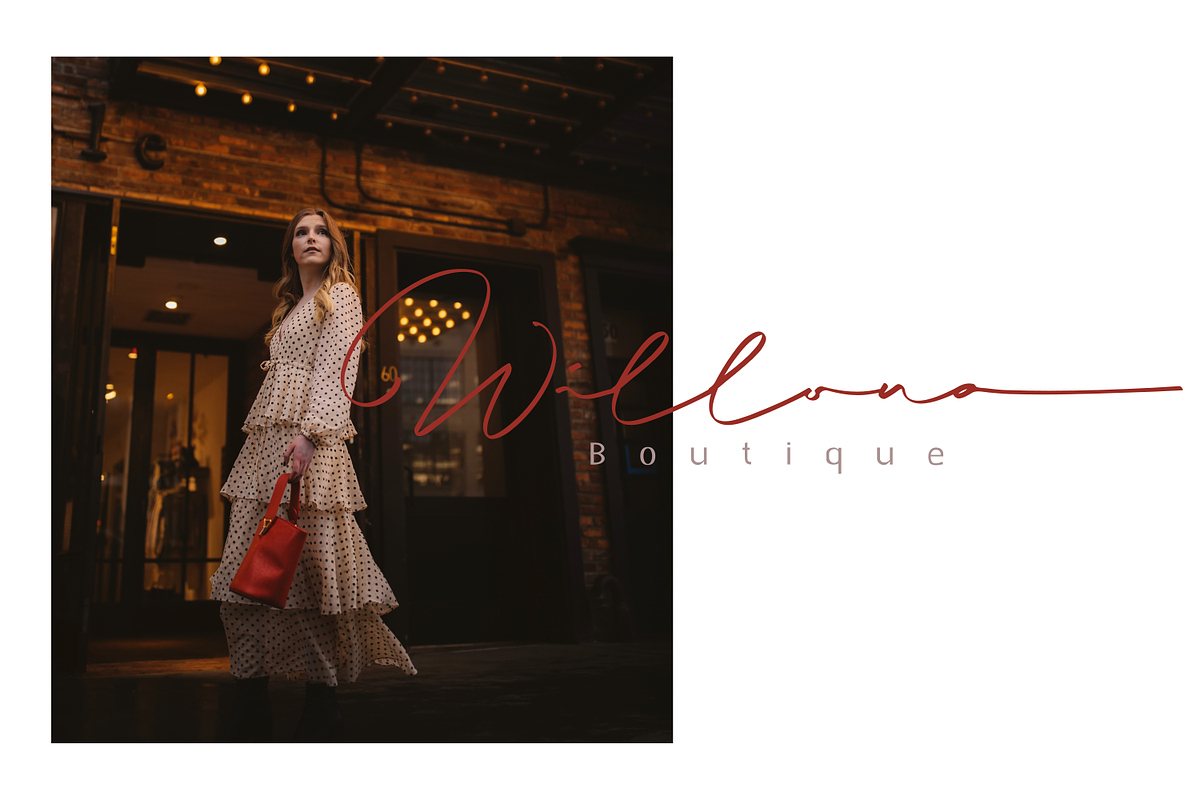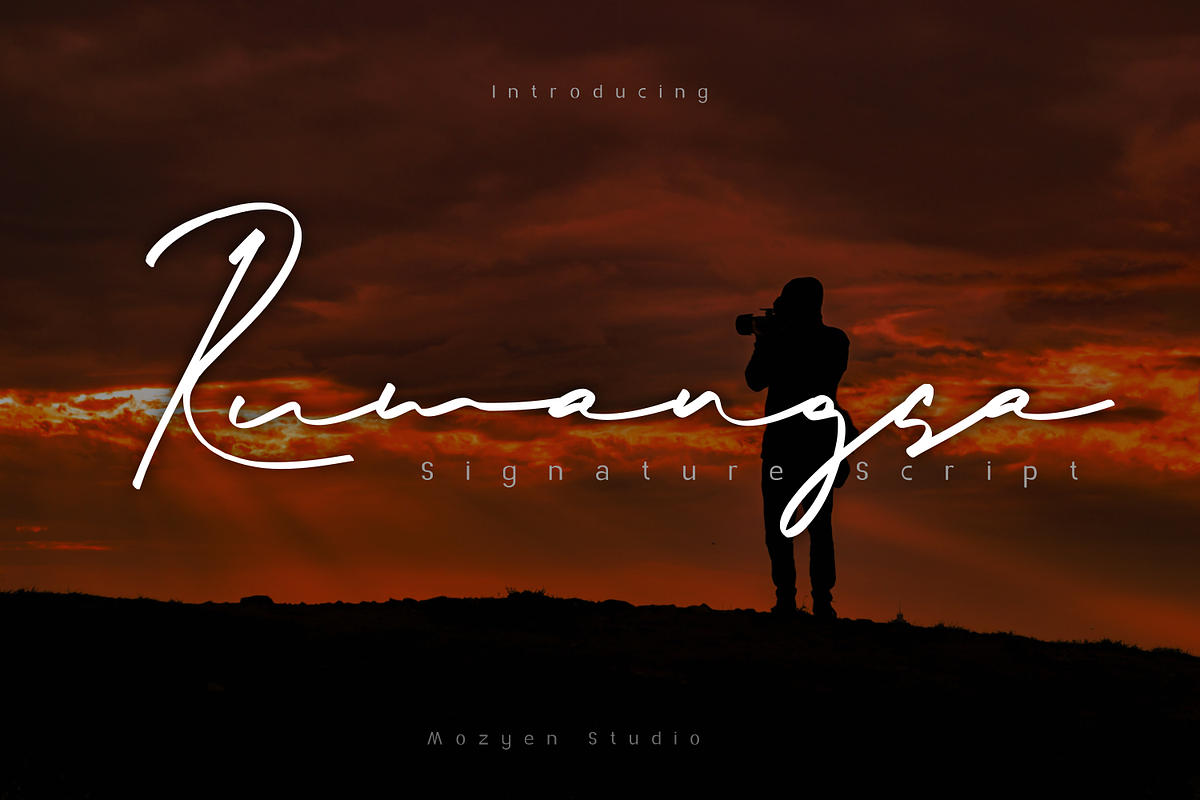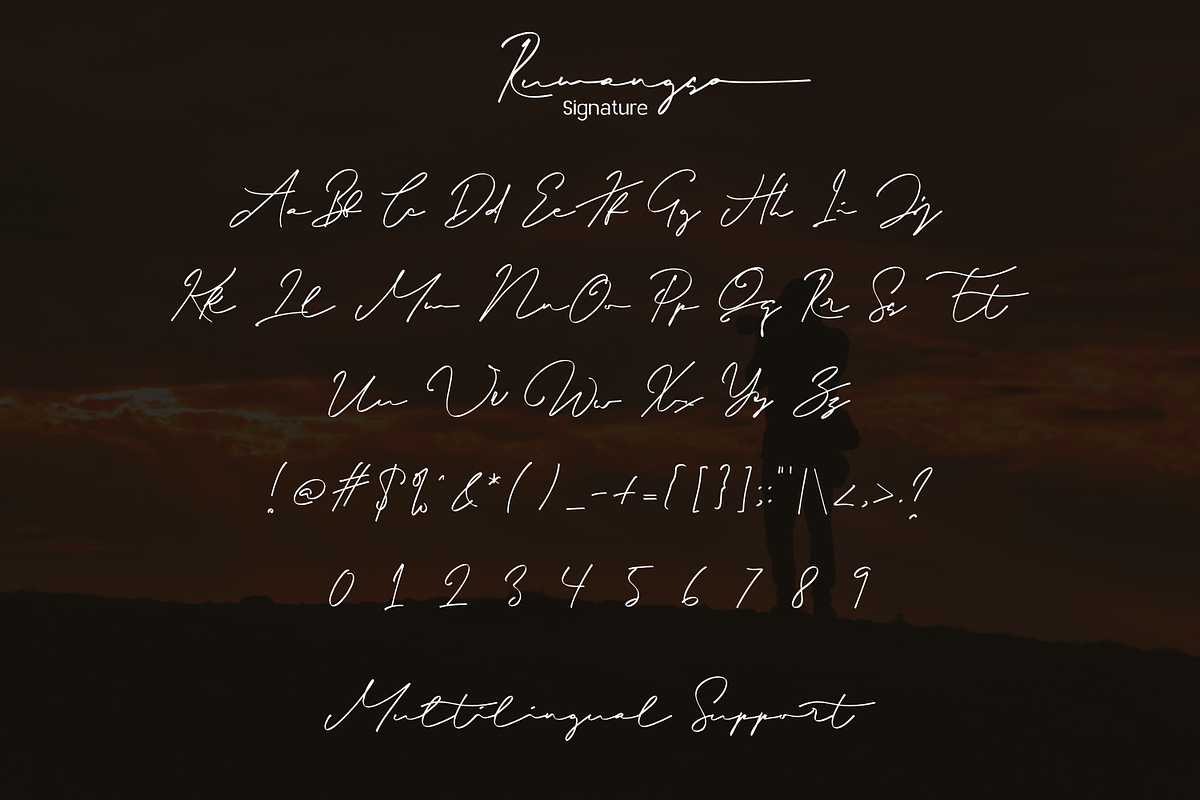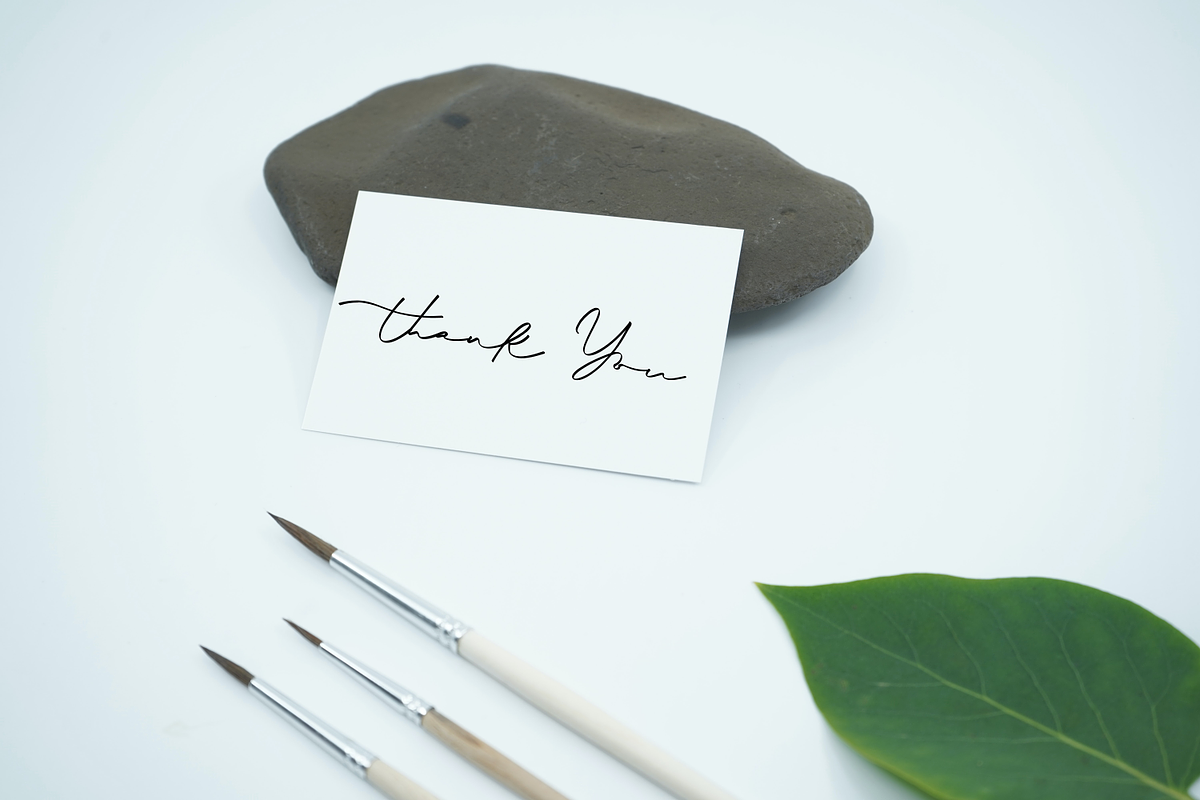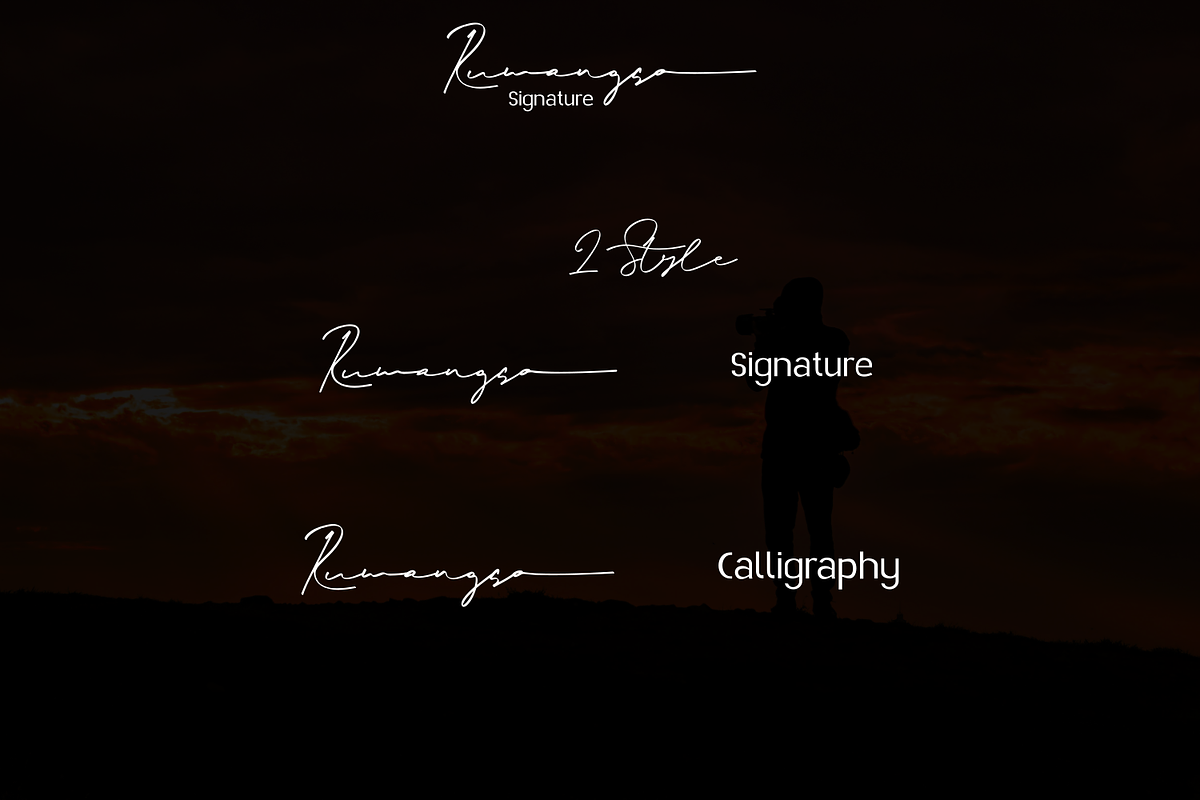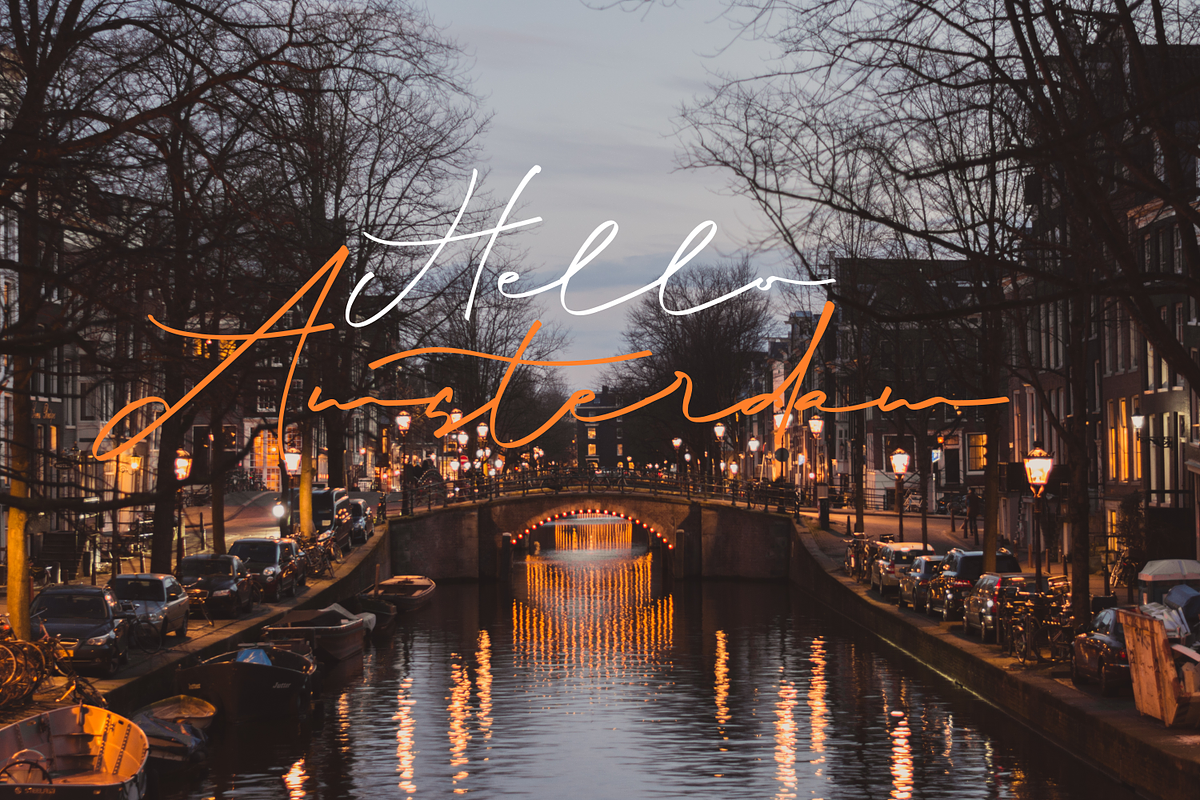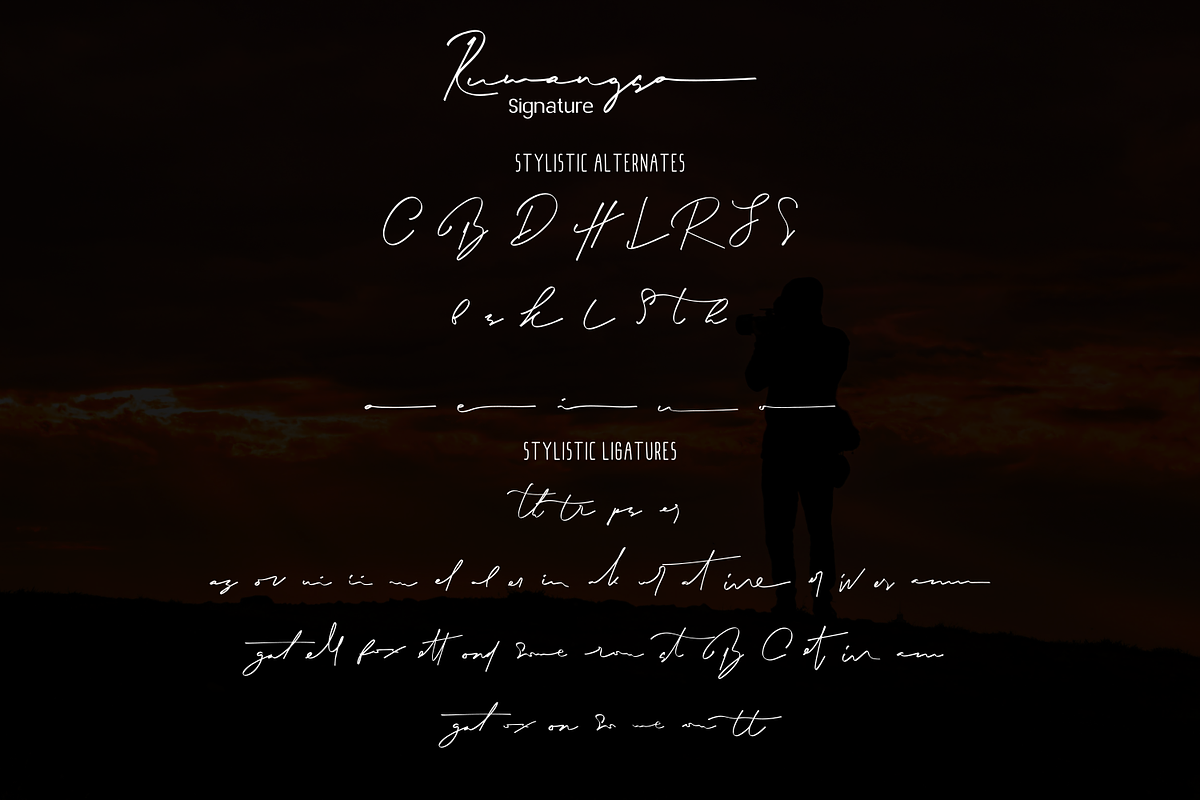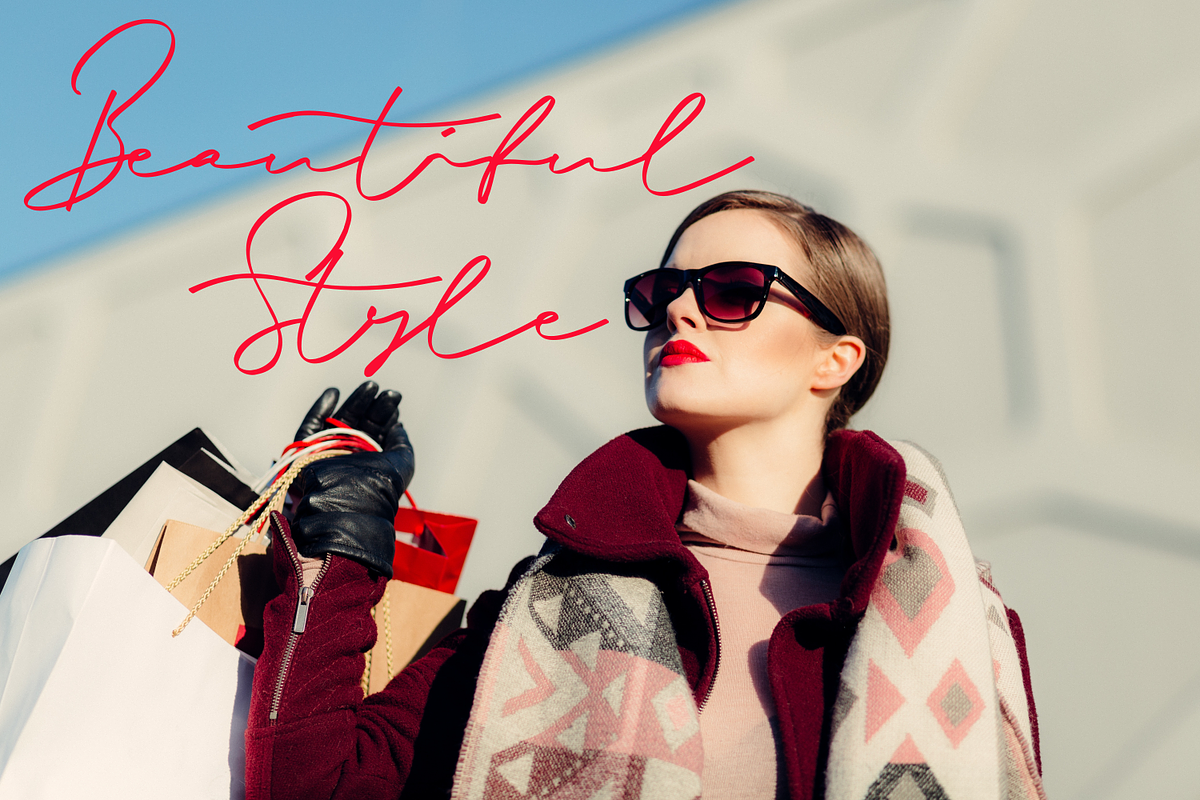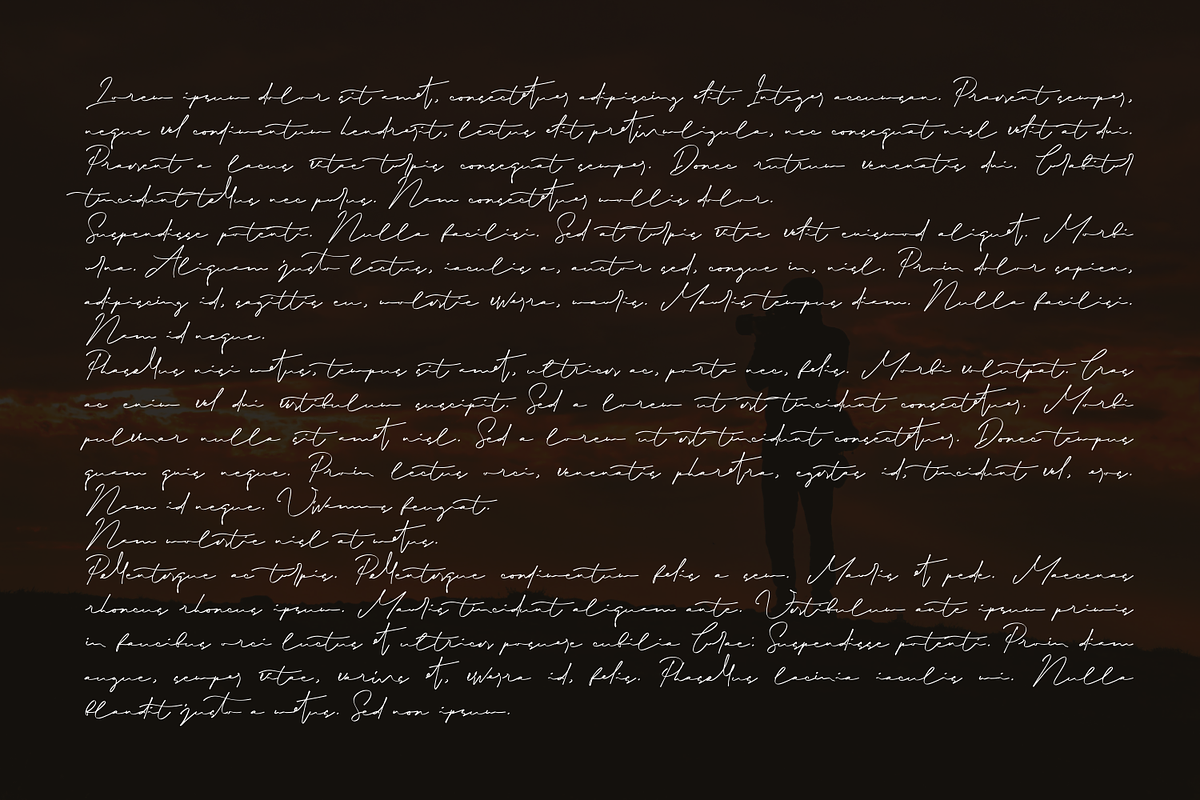
Rumangsa
Rumangsa is an elegant and flowing handwritten font. It is PUA encoded which means you can access all of the glyphs and swashes with ease! It features a varying baseline, smooth lines, gorgeous glyphs and stunning alternates.